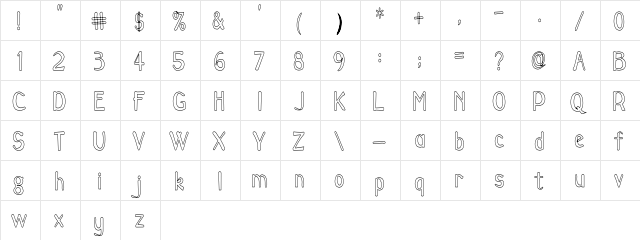
Fox Rest Hollow Condensed Regular
Design Context for Fox Rest Hollow Condensed Typeface
Fox Rest Hollow Condensed offers clean, dependable letterforms without strong stylistic allegiance, making it a practical choice for designers who need flexibility. Its narrow stance lets it pack a punch even in space-constrained designs.